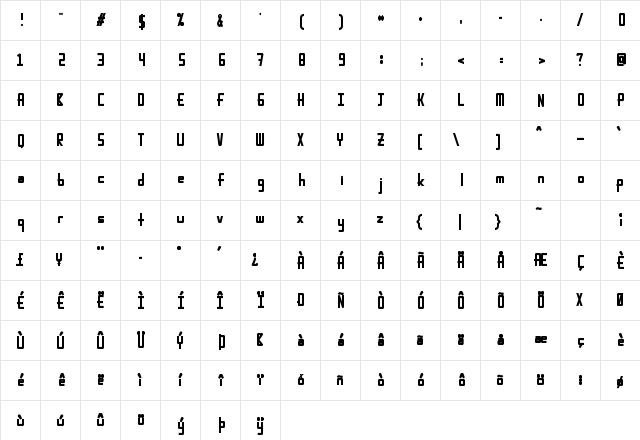
Karpow Bold
| Foundry | xerographer.com |
| Designer | Max Infeld |
Design Context for Karpow Typeface
Karpow offers clean, dependable letterforms without strong stylistic allegiance, making it a practical choice for designers who need flexibility. Its bold stroke weight gives it real presence on the page.